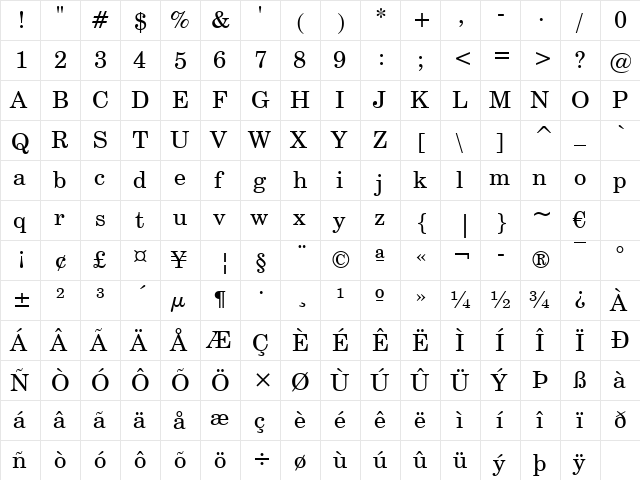
CentSchbook WGL4 BT Roman
Design Context for CentSchbook WGL4 BT Typeface
CentSchbook WGL4 BT offers clean, dependable letterforms without strong stylistic allegiance, making it a practical choice for designers who need flexibility.